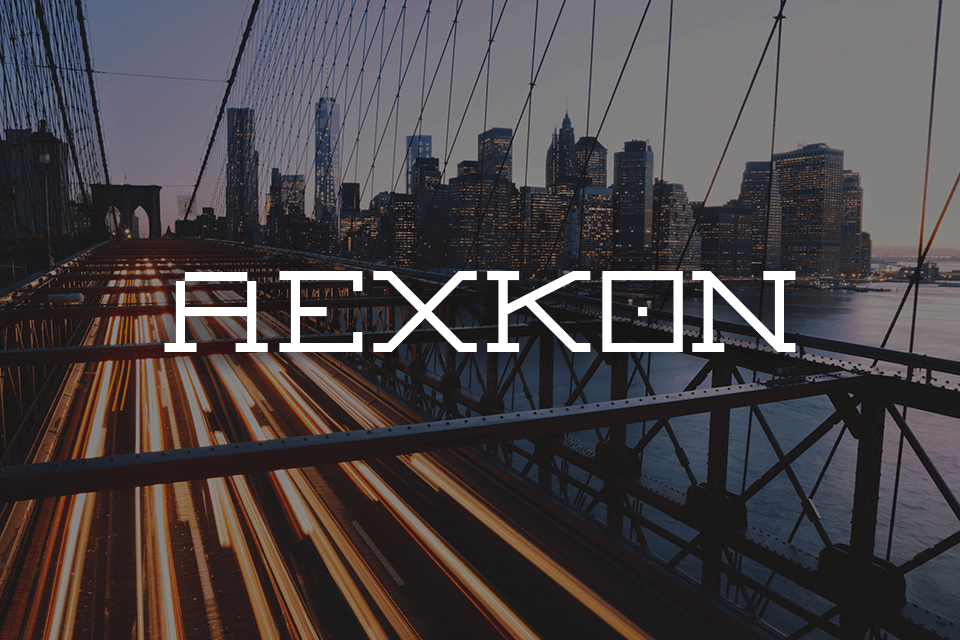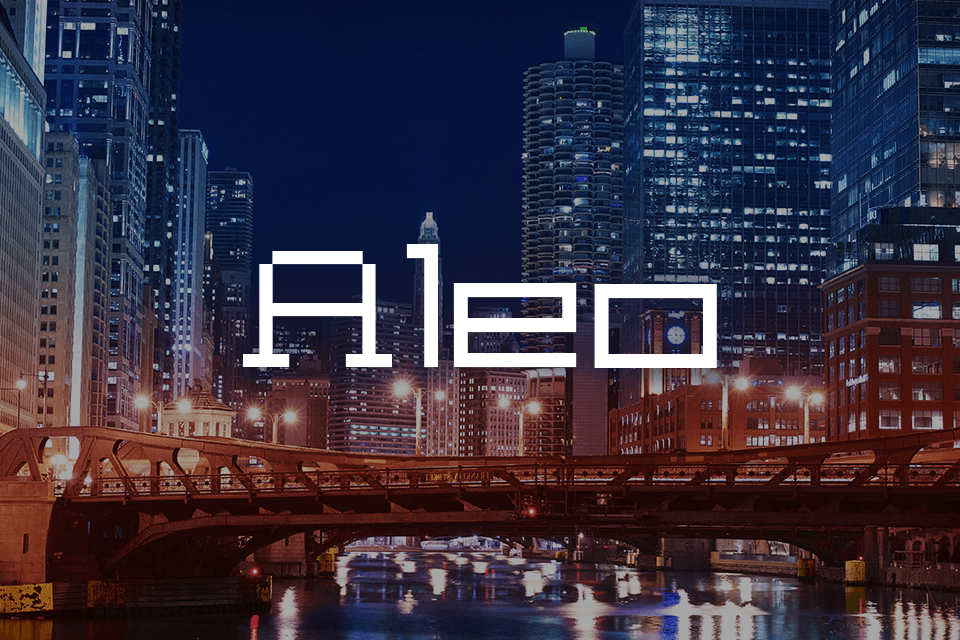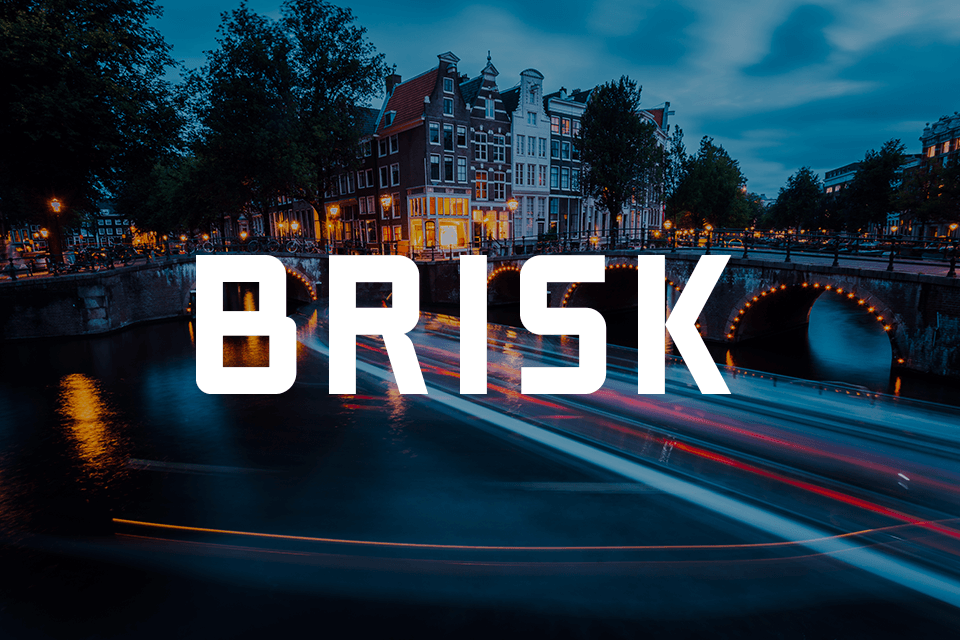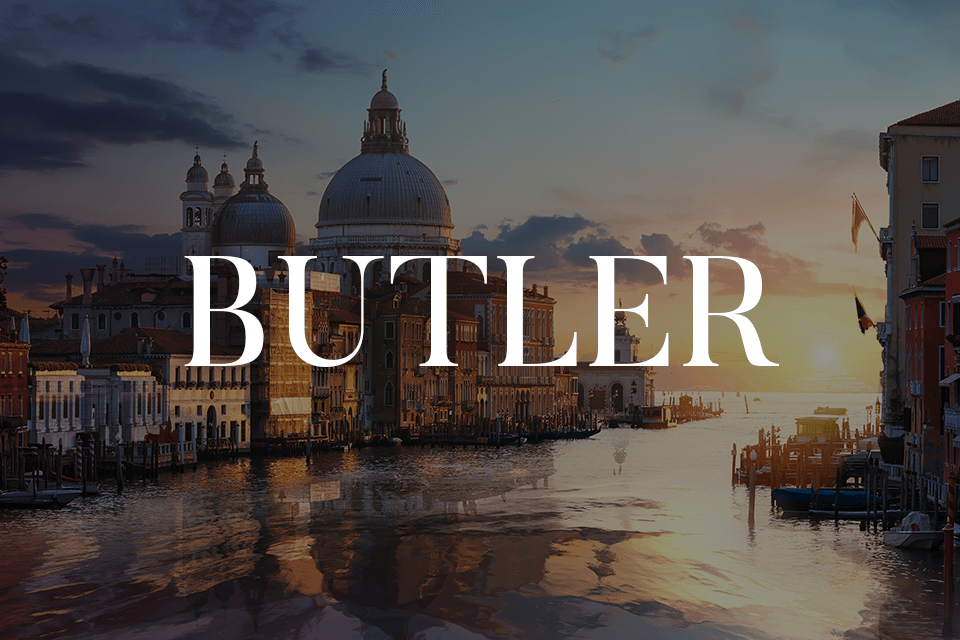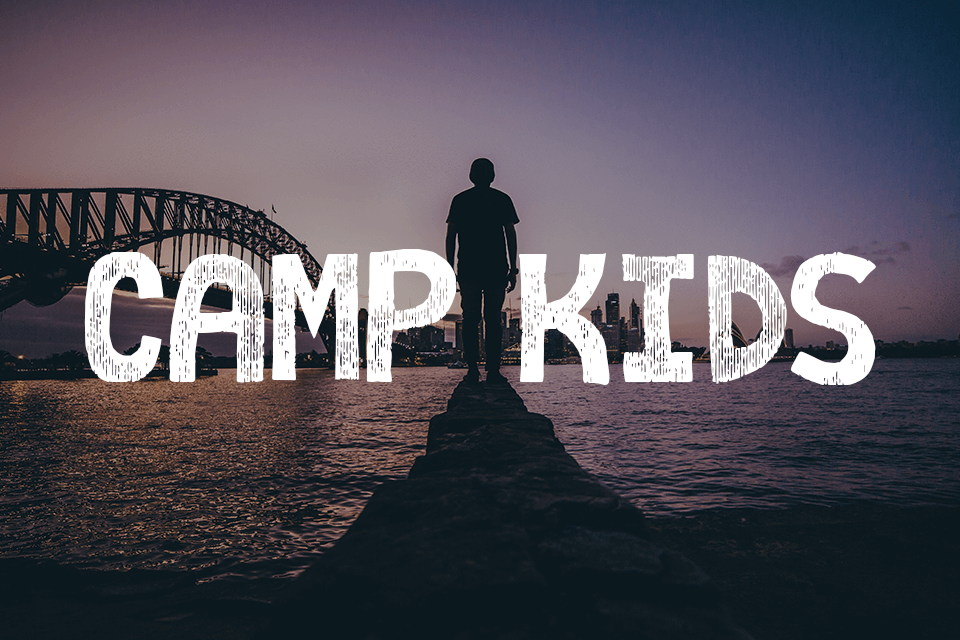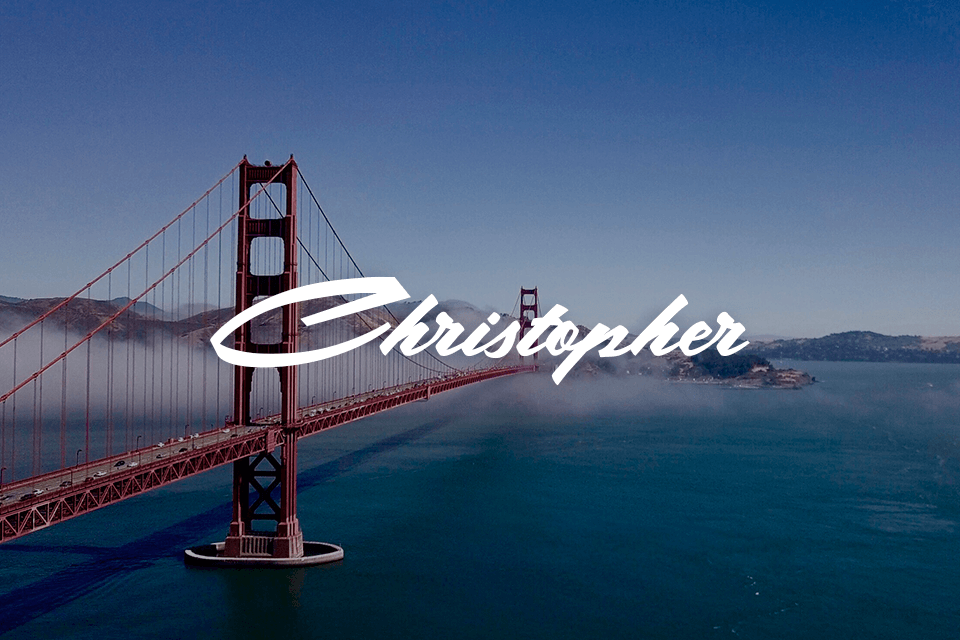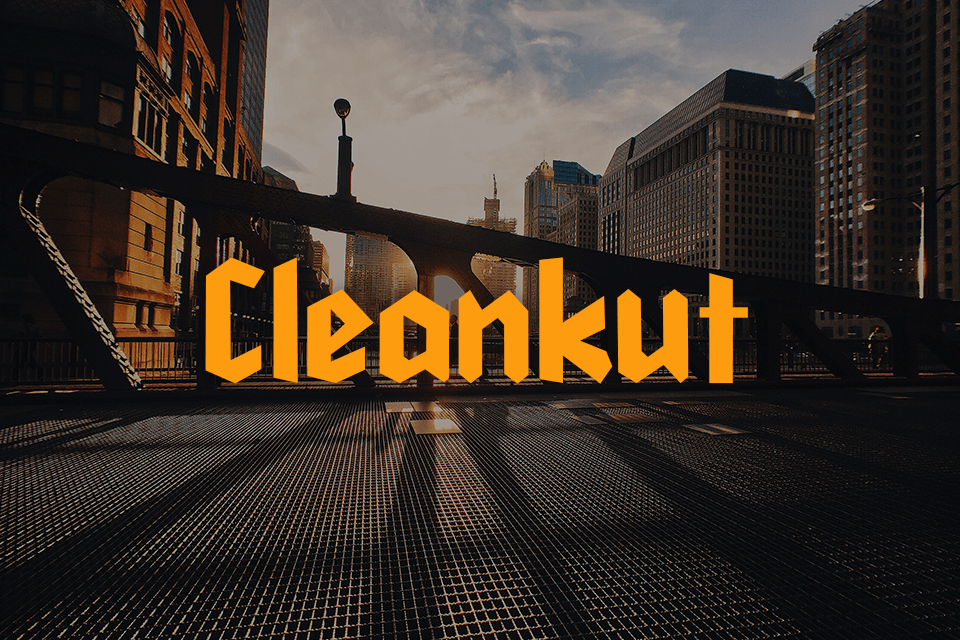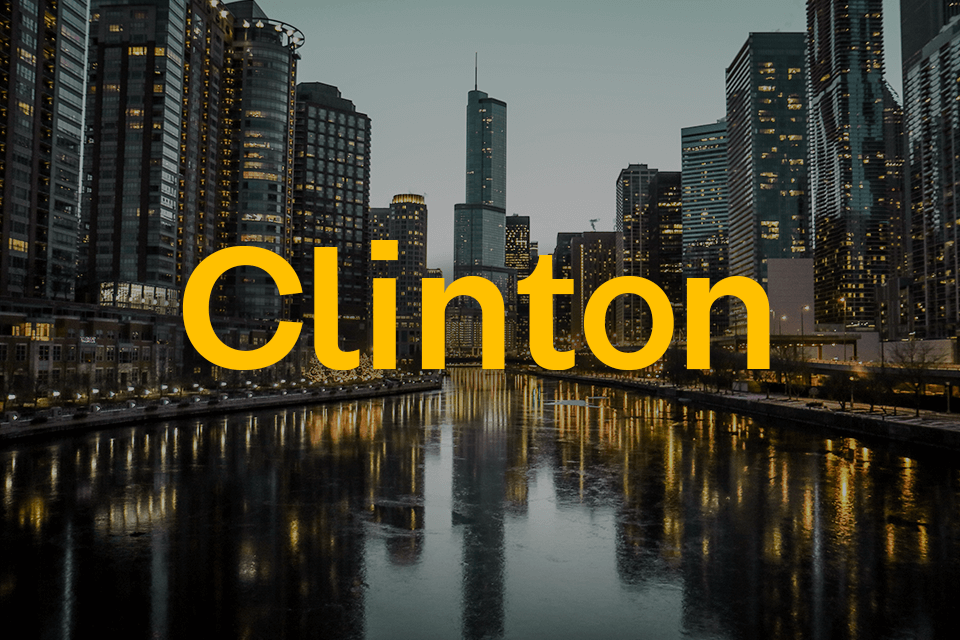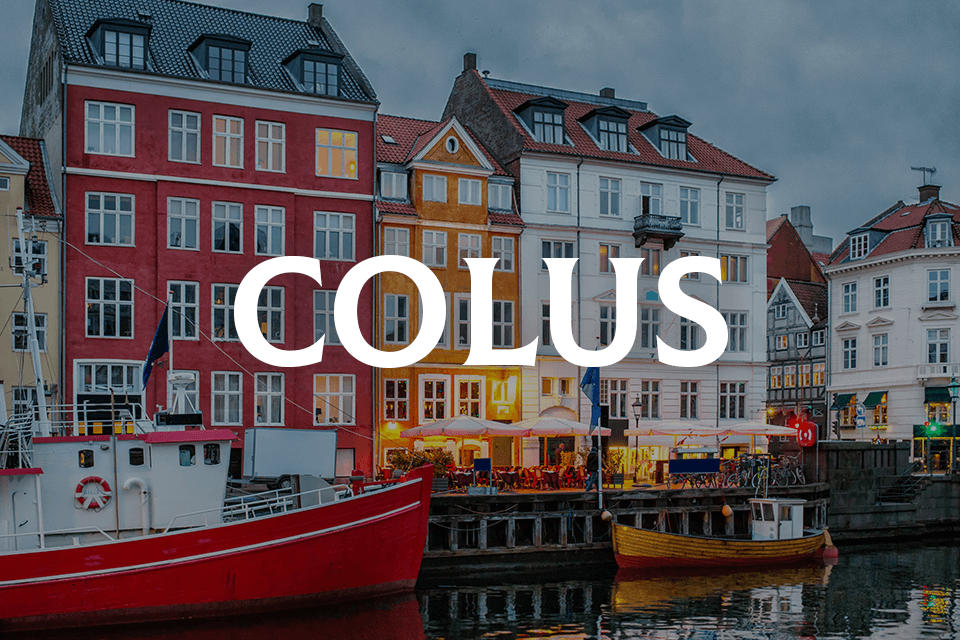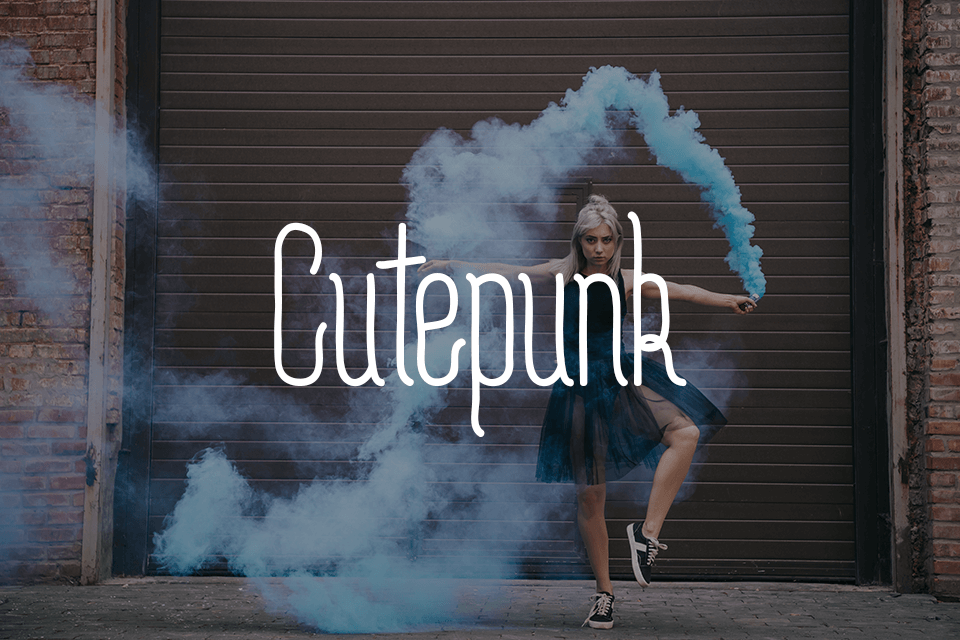
Designers frequently choose Adobe Illustrator for their work because the program has many handy tools for drawing. Anyway, you may need additional helpers such as free fonts for Illustrator for certain tasks.
I have selected 40 Popular & Trendy Fonts for Adobe Illustrator, which you can get absolutely for free and use them to create more eye-pleasing designs.
Illustrator fonts speed up the workflow and help imitate numerous artistic techniques without much effort. Of course, you can produce your own patters, but downloading ready-made fonts seems to be a more time-saving idea.
If you value your time and are constantly looking for the methods to facilitate the workflow, you definitely need to try using free fonts for Adobe Illustrator below.
Contaria is commonly referred to as a “soft” free font for Illustrator. Designers regularly use it for illustrations and logos, when they want to attract viewers’ attention with smooth rounded letters. Such a design looks very gentle and neat.
This is another cool option for professional-looking projects in Adobe Illustrator. It will become your go-to tool if you are mainly engaged in creating logos. The letters are nicely typed. One side of a letter is thick, while the other has a thin contour. Frankly speaking, such a combination of shapes results in a wonderful effect.
If you are looking for an Illustrator font that can emulate the letter painted with a brush, you absolutely need to test Constanta. It is ideal for logos and stationary, but you can freely experiment with other projects.
Carridge is highly popular among Adobe Illustrator users. It neither looks usual nor classic. It is characterized by uneven, sharp edges, but, at the same time, smooth transitions between letters.
Either you feel inspired to design an amazing logo or you simply want to hone your skills, playing with different free fonts Illustrator – you can start by testing Astarin. I promise you will be impressed.
This is a truly universal font that can serve for many design tasks. For instance, you can resort to Chusarky if you are working on wallpapers, all kinds of animations, movie screen savers, or something like that. In general, this font has a cinematic look that is suitable for many projects.
This is a remarkable sample of classic fonts for Adobe Illustrator. It is designed for use in researches, official texts, manuals, homework, etc. Of course, you can supplement this font with additional creative elements and use it in an absolutely unexpected way.
Similar to the rest of the fonts described in this article, Buke also helps facilitate the workflow and makes your text more attention-grabbing. I believe this is an ideal typeface for movie screen savers and vlog. However, you can find an application for this font in other spheres as well.
This free font for Illustrator can easily win your heart and take it away. If you are trying to give your text an unusual look, Chitosa can be very helpful. With all the twirls and curls it has, your finished work will make people look at it again and again.
Chalsyn is very popular among professional designers, so don’t miss a chance to download it absolutely for free. It is suitable for posters, bright pictures and other visual content. Do you remember the standard Instagram font for Stories, called “Typewriter”? Actually, they are very alike, with the thickness being the only difference. Chalsyn is narrower.
Rude is a neatly handcrafted Serif font. It contains uppercase, lowercase, symbols and numerals. This free font Illustrator is extensively used in printed media, logos, apparel, posters, title, and headlines, but can be adapted to other purposes with ease.
I really admire how gentle letters are combined with old-style serifs in this font. Such a beautiful mixture seems suitable for many designs, so don’t be afraid to experiment. Personally, I have tried this font for branding, editorial text and book covers. In all cases, it looks fantastic.
Renata Polastri and Omnibus-Type used Roman and blackletter font styles as a basis and created Grenze. It looks very stylish without compromising readability. Initially, this free font for Adobe Illustrator was meant for magazine use, but it can be equally helpful for other designs as well.
This is a display font that resembles stone and wooden carved inscriptions. It has a classic, somehow noble look, which makes it an ideal pattern for inspiring headers, catchy logos with an antique touch, refined posters, etc.
Aleo Slab font for Illustrator has semi-rounded letters and a gentle structure, which can help you add personalized touches to your project. However, such a sleek appearance doesn’t sacrifice legibility. This font was mainly designed to speed up your workflow and make the whole process more enjoyable.
Myste is an original Sans Serif typeface, which can become your favorite creative tool in Adobe Illustrator. It is well-designed and can help those designers, who want to make their artworks stand out among others.